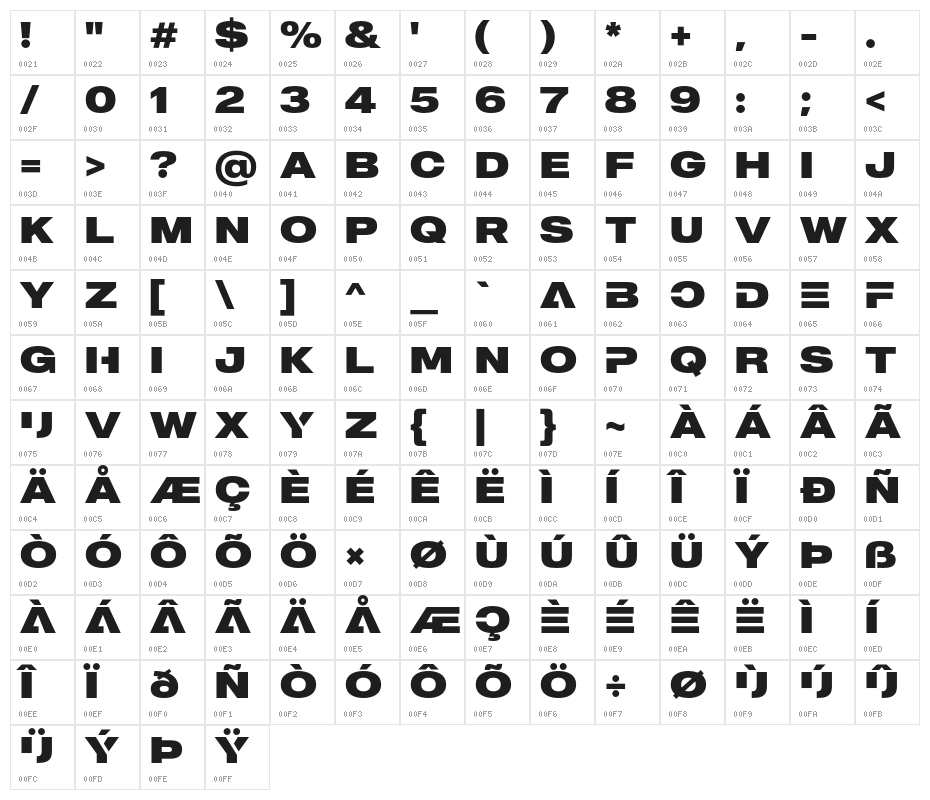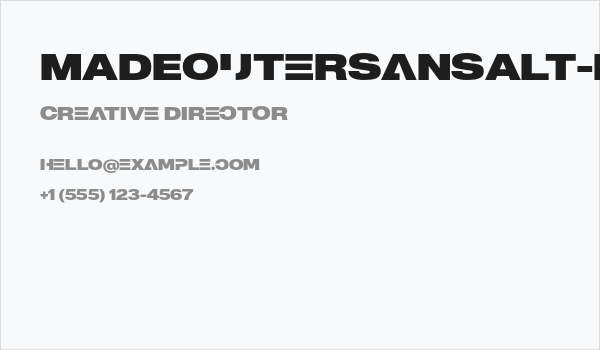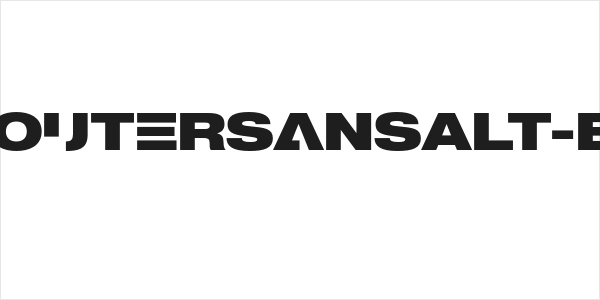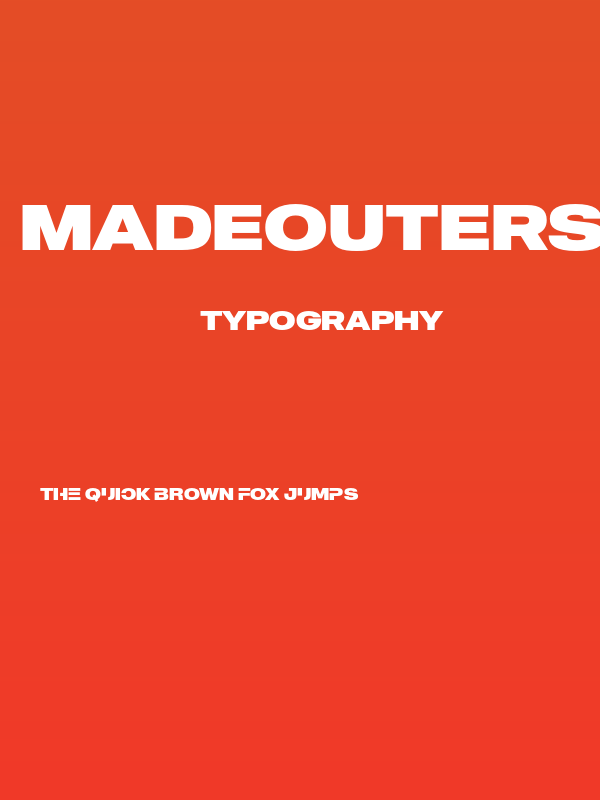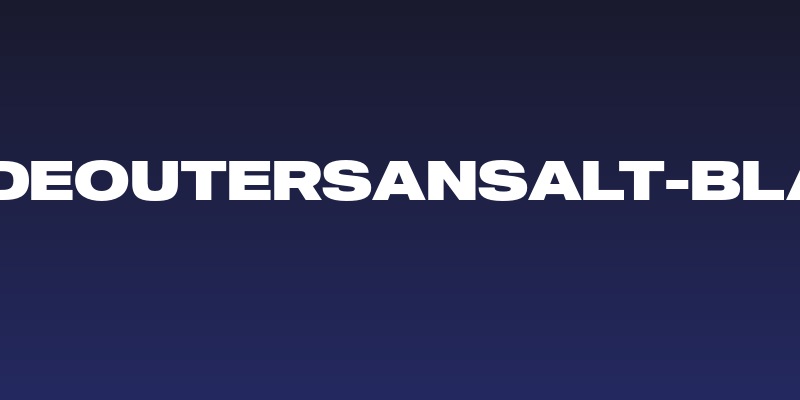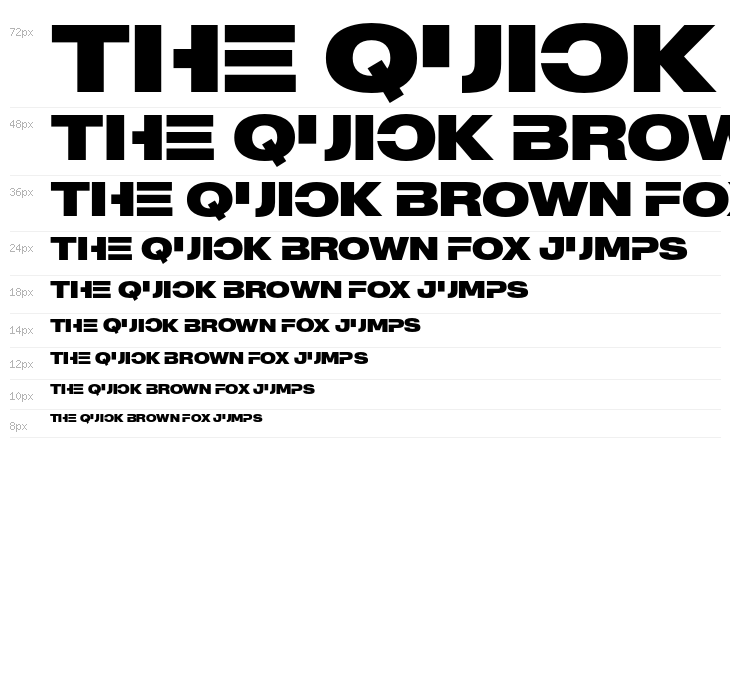
MADEOuterSansAlt-Black Font
MADEOuterSansAlt-Black Description
This font features a bold, geometric sans-serif style with a modern and striking appearance. The characters are uniformly thick, providing a strong visual impact. The uppercase letters are particularly wide and commanding, making them ideal for attention-grabbing headlines. The numbers and special characters maintain the same boldness, ensuring consistency across different uses. The font's clean lines and lack of serifs contribute to its contemporary feel, while the uniform stroke thickness offers a cohesive look across all characters.